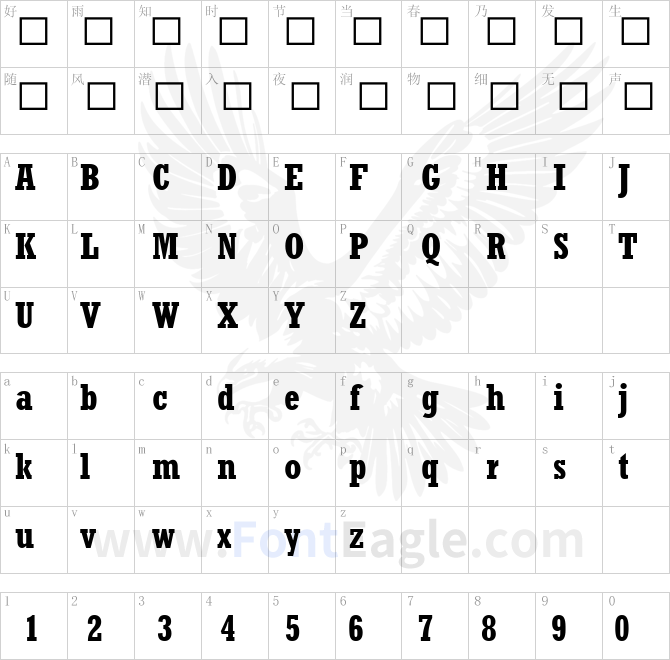
- Font name:Rockwell Condensed
Rockwell-Condensed-Bold is a great font, widely used in graphic design, single-page menu design, poster design and other fields, and is deeply loved by designers.Rockwell-Condensed-Bold download.